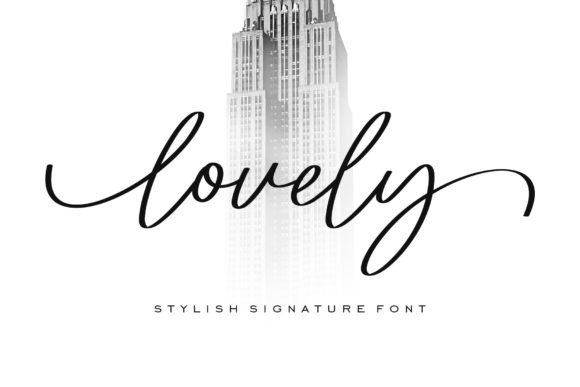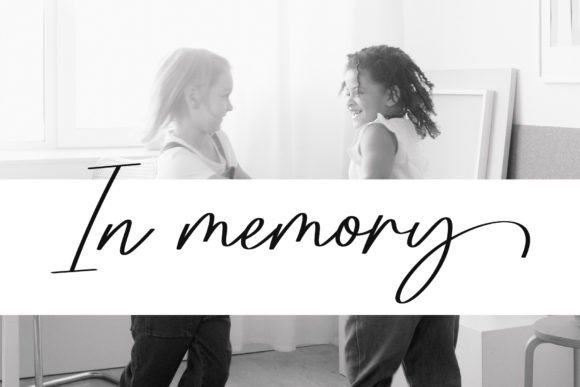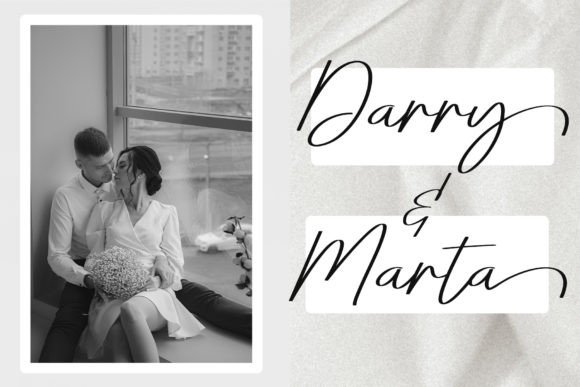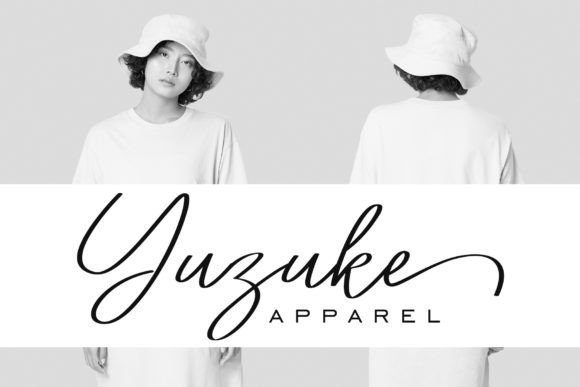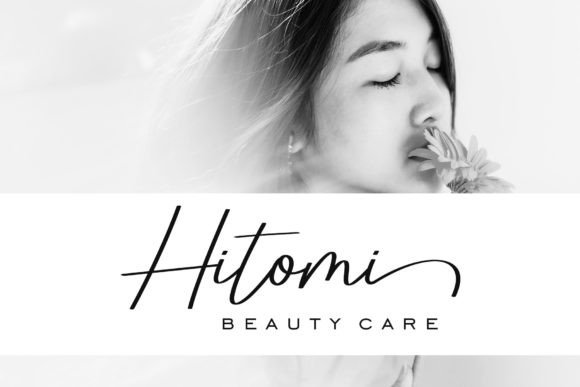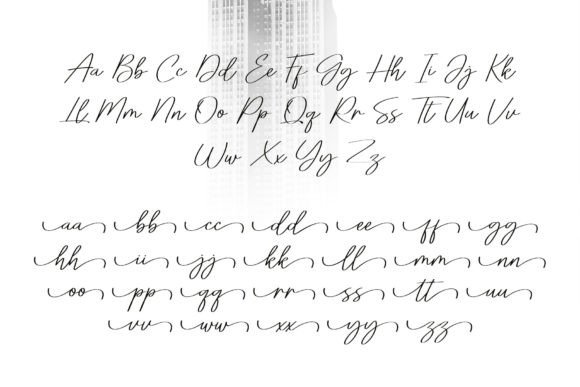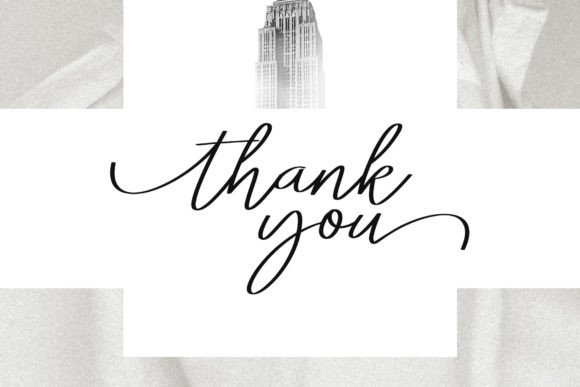
Lovely Font
Lovely is a delicate and graceful script font that radiates elegance and charm. Its thin, curving lines are imbued with a sense of femininity and romance, making it perfect for a range of design applications, including invitations, greeting cards, and feminine branding projects. With its subtle swashes and flourishes, Lovely adds a touch of whimsy and sophistication to any design project, while its airy letterforms evoke a sense of lightness and delicacy.